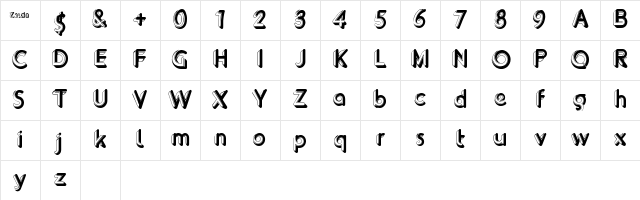
Moderne-Zelda Regular
Design Context for Moderne-Zelda
Moderne-Zelda is a composed and adaptable typeface that performs quietly and consistently across a wide range of design contexts.
Pro Tip: Use Moderne-Zelda in both headline and body roles to test its range before committing to a single application.